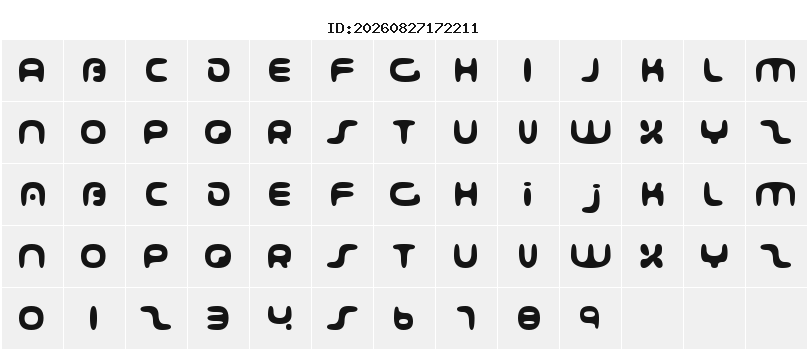
• Font Name: 001 Interstellar Log
About 001 Interstellar Log.ttf
001 Interstellar Log.ttf is a modern, elegant sans-serif font designed for ultimate readability and visual harmony. Perfect for branding, headlines, web design, and print materials.